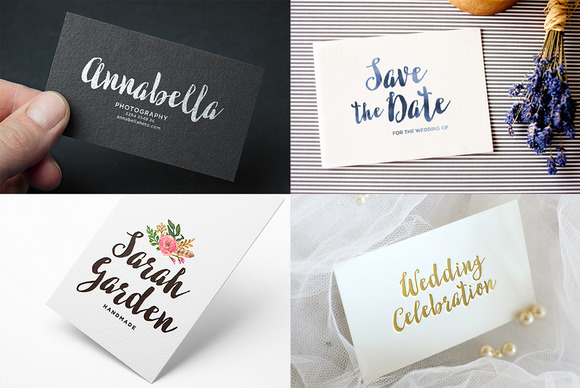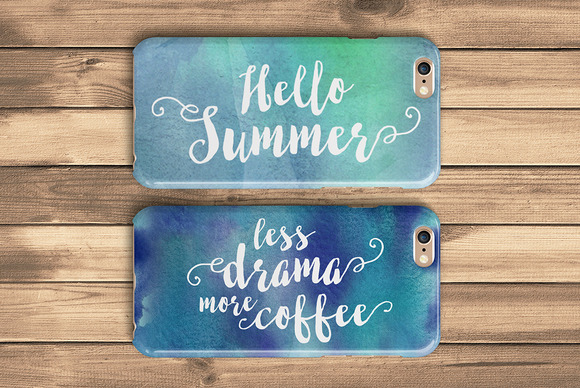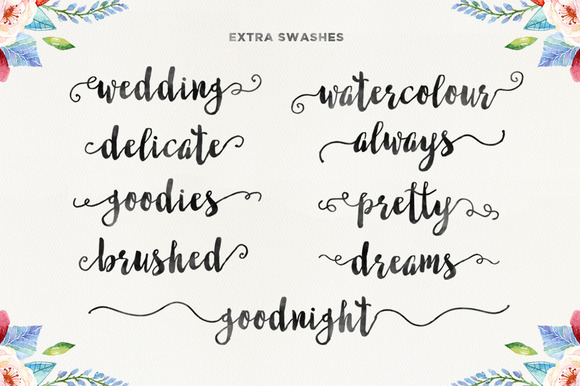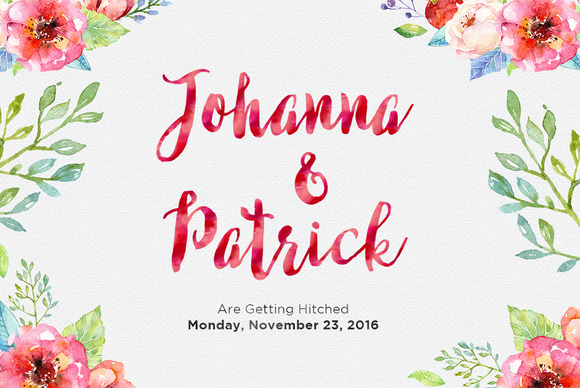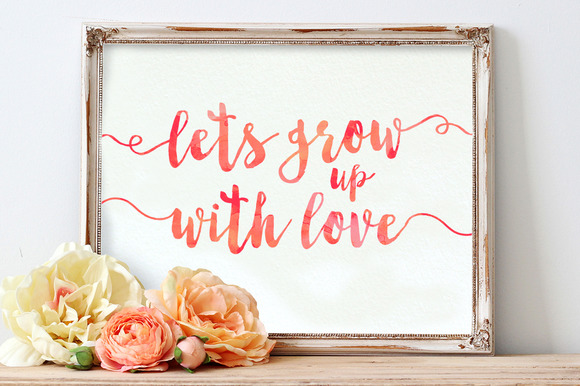
Fabulous Script Font: Elevate Your Designs with a Fun and Organic Touch
Are you looking for a font that can add a personal touch to your designs? Look no further than the Fabulous Script Font! This beautiful hand-painted script font is perfect for designers and crafters who want to give their projects a unique and organic feel. With its varied swashes and versatility, Fabulous is an excellent choice for a wide range of design applications.
What Makes Fabulous Script Font So Special?
Fabulous Script Font is a one-of-a-kind font that boasts a range of features that set it apart from other script fonts. Here are just a few reasons why Fabulous is a must-have for designers and crafters:
- Hand-painted with love: Fabulous is a hand-painted script font, which means that each letter has been carefully crafted to give it a unique, organic feel.
- Fun and playful vibe: Fabulous has a fun and playful vibe that’s perfect for designs that need a bit of personality.
- Swashes galore: Fabulous comes with a range of swashes that can be applied to the beginning and ending of all lowercase letters, giving you even more creative possibilities.
What Can I Use Fabulous Script Font For?
One of the best things about Fabulous Script Font is its versatility. This font can be used for a wide range of design applications, including:
- Headings and titles: Fabulous is perfect for creating eye-catching headings and titles that will grab attention.
- Logos and branding: Use Fabulous to create a unique and memorable logo that will help your brand stand out.
- Invitations and greeting cards: Fabulous is a great choice for creating beautiful, one-of-a-kind invitations and greeting cards.
- T-shirt designs and apparel: Add a personal touch to your t-shirt designs and apparel with Fabulous Script Font.
- Posters and flyers: Use Fabulous to create eye-catching posters and flyers that will grab attention.
- Labels and packaging: Fabulous is perfect for creating labels and packaging that will make your products stand out.
- Book covers and brochures: Use Fabulous to create beautiful book covers and brochures that will showcase your content in style.
Tips for Using Fabulous Script Font
Here are a few tips for getting the most out of Fabulous Script Font:
- Experiment with swashes: Don’t be afraid to try out different swashes to see what works best for your design.
- Mix and match: Combine Fabulous with other fonts to create a unique and interesting look.
- Play with color: Fabulous looks great in a range of colors, so don’t be afraid to experiment and find the perfect hue for your design.
Whether you’re a seasoned designer or a crafty DIY enthusiast, Fabulous Script Font is sure to become a favorite in your font collection. So go ahead, get creative, and see what amazing designs you can create with Fabulous!